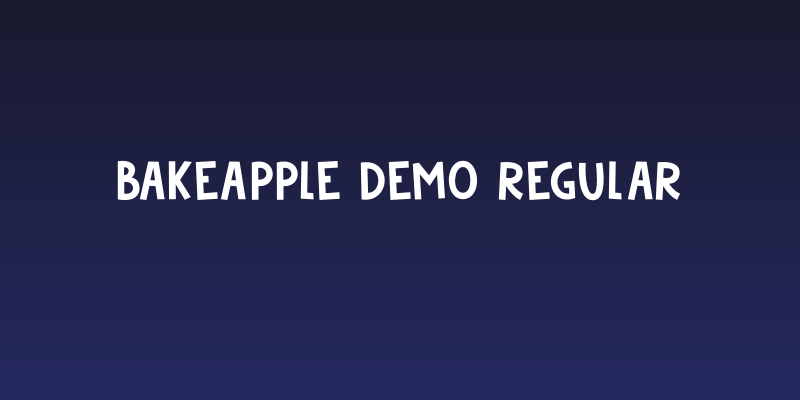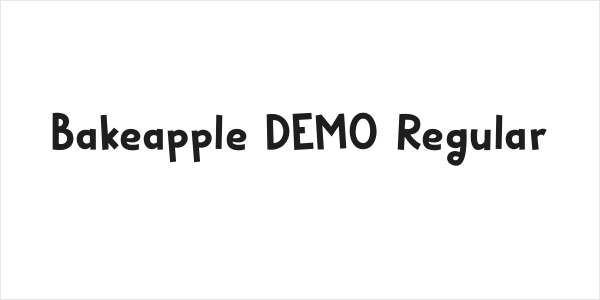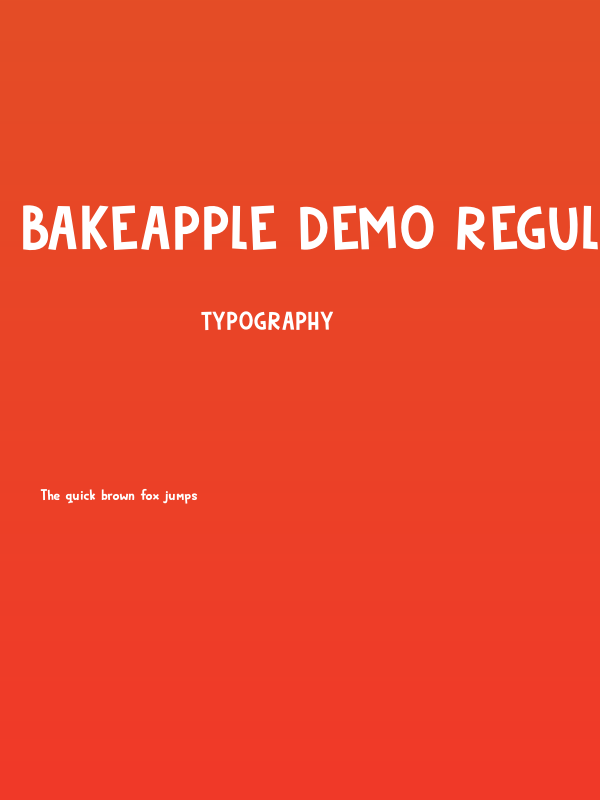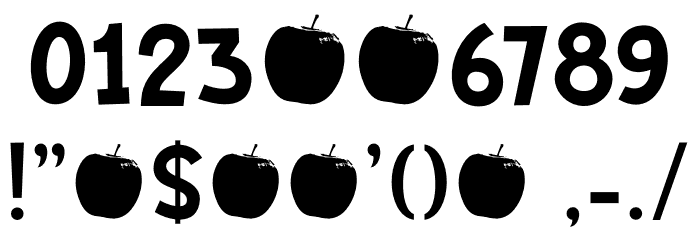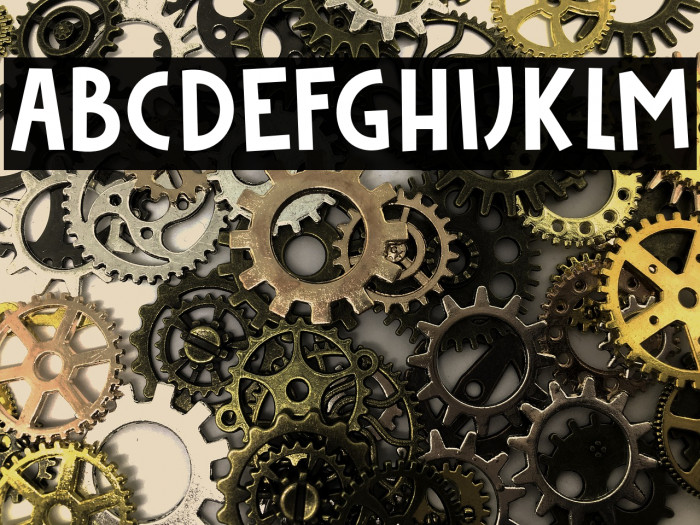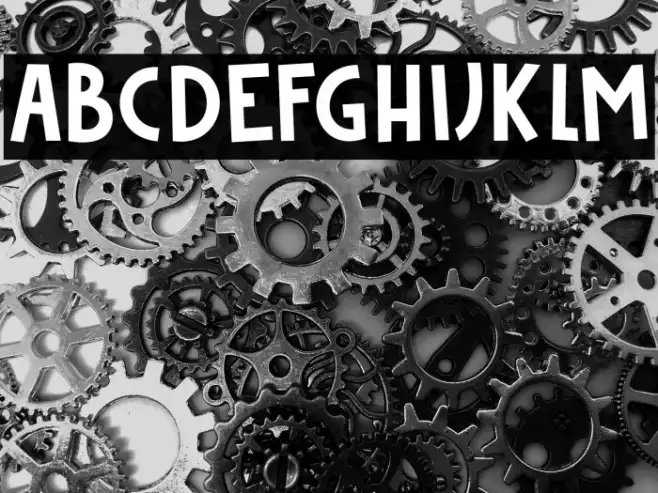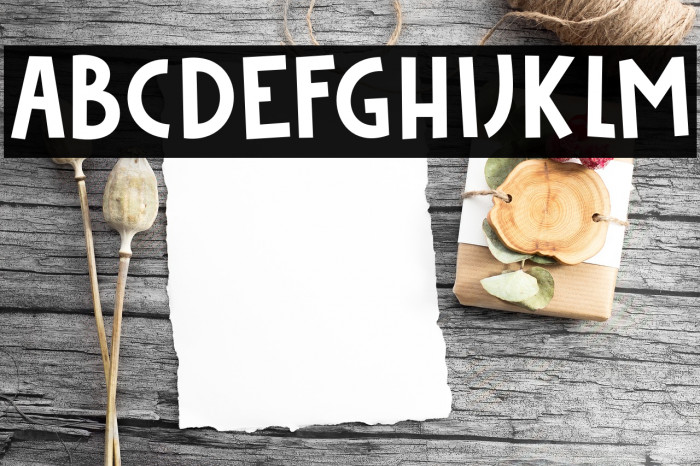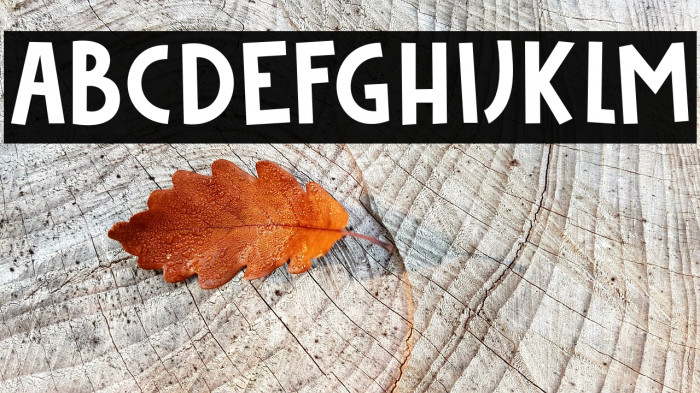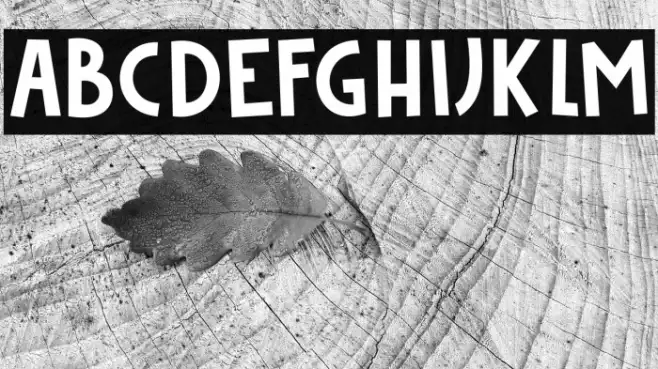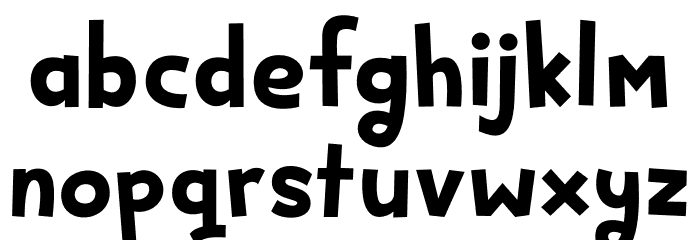
Bakeapple DEMO Regular Font
Bakeapple DEMO Regular Description
This playful and bold font features a whimsical style with exaggerated curves and a slightly uneven baseline, giving it a hand-drawn appearance. The uppercase letters are tall and narrow, while the lowercase letters maintain a consistent height, adding to the font's quirky charm. The numbers and special characters are equally distinctive, with some characters resembling playful shapes. This font is perfect for projects that require a fun and informal touch, such as children's books, playful branding, or creative posters.
| Proposed Projects | Children's books, playful branding, creative posters, informal invitations. |